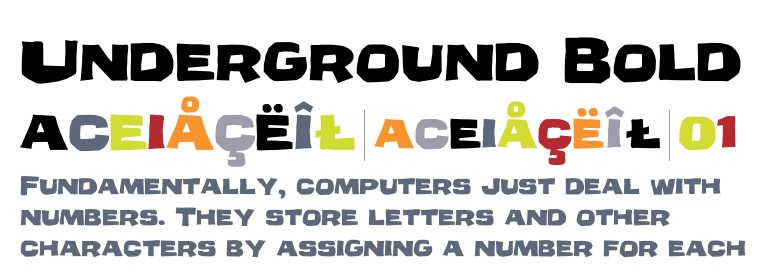
Underground Font
Underground Font is perfect for alternative music branding, indie record labels, urban streetwear designs, grunge band posters, underground club graphics, counter-culture magazines, rebellious art projects, and edgy lifestyle branding.
This exciting Underground Font pulses with raw rebellious energy and subversive character that captures the authentic spirit of counter-culture movements and underground artistic expression. The font's edgy personality and anti-establishment aesthetic make it an exceptional choice for projects requiring alternative authenticity, rebellious attitude, and underground credibility that resonates with audiences who reject mainstream culture and embrace independent creative expression.
The Underground Font family features multiple rebellious variations including Regular, Distressed, Stencil, Graffiti, Heavy, and Anarchist versions, providing designers with comprehensive options for creating authentic counter-culture brand communications and rebelliously inspired typographic compositions with genuine underground movement appeal.
Embrace alternative typography with Underground Font Free Download - a boldly crafted typeface that embodies the raw energy and independent spirit of underground culture movements. This versatile font combines rebellious authenticity with contemporary functionality, making it ideal for brands and projects that need to communicate alternative values, creative independence, and authentic counter-culture credibility.
The rebellious character of Underground Font makes it particularly effective for independent music labels, alternative fashion brands, underground venues, and counter-culture businesses that need to convey authenticity, creative rebellion, and anti-mainstream values. Its edgy styling appeals to audiences who appreciate independent artistry, alternative culture, and authentic underground experiences.
Alternative culture designers choose Underground Font for its authentic rebellious atmosphere and exceptional visual impact across various counter-culture applications. The font maintains its edgy character from small band merchandise to large underground venue murals, ensuring consistent alternative branding and rebellious appeal throughout all counter-culture communications.
The distinctive personality of Underground Font creates immediate emotional connections through powerful associations with creative independence, alternative culture, and underground artistic movements. This makes it invaluable for brands seeking to leverage counter-culture authenticity and rebellious creativity for marketing campaigns and alternatively focused brand positioning strategies.
Independent culture brands utilize Underground Font to establish credible identities that communicate creative rebellion, alternative values, and underground authenticity in competitive alternative markets. The typeface's rebellious appeal helps organizations differentiate themselves while attracting independent-minded consumers who value creative freedom, alternative culture, and authentic underground experiences in their lifestyle and artistic choices.